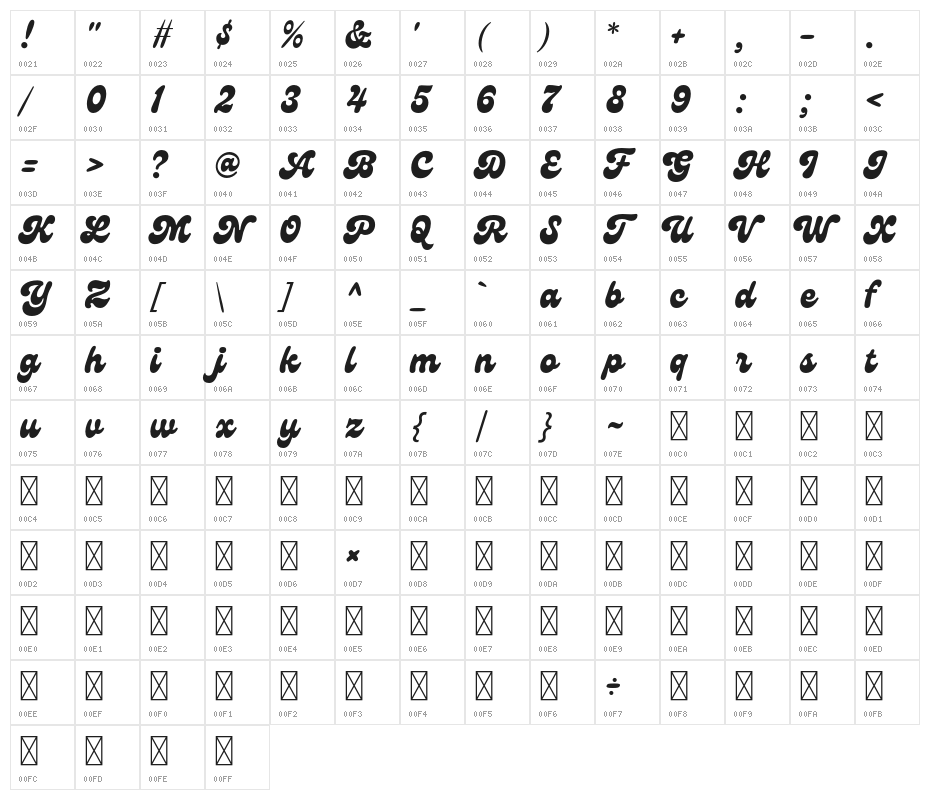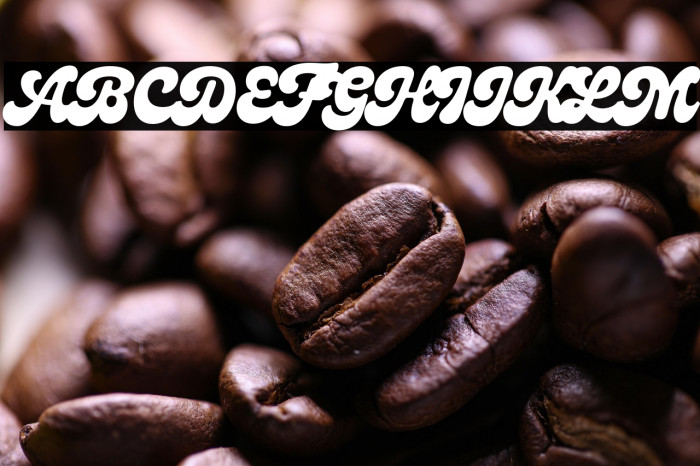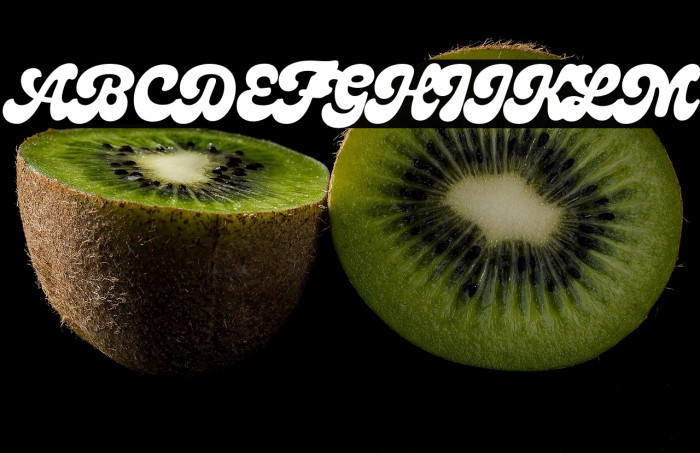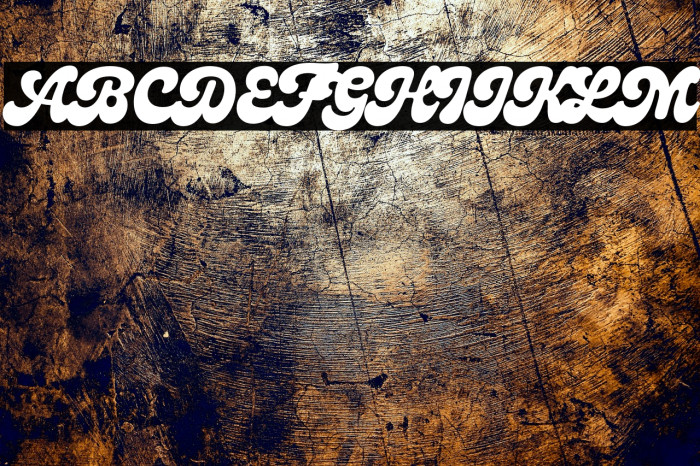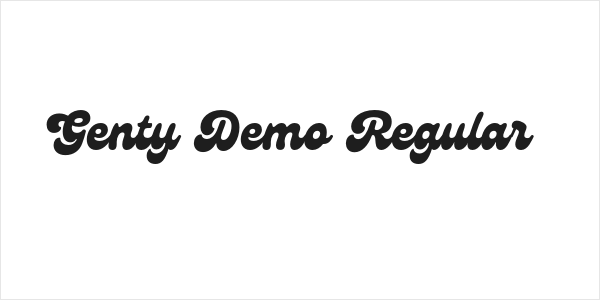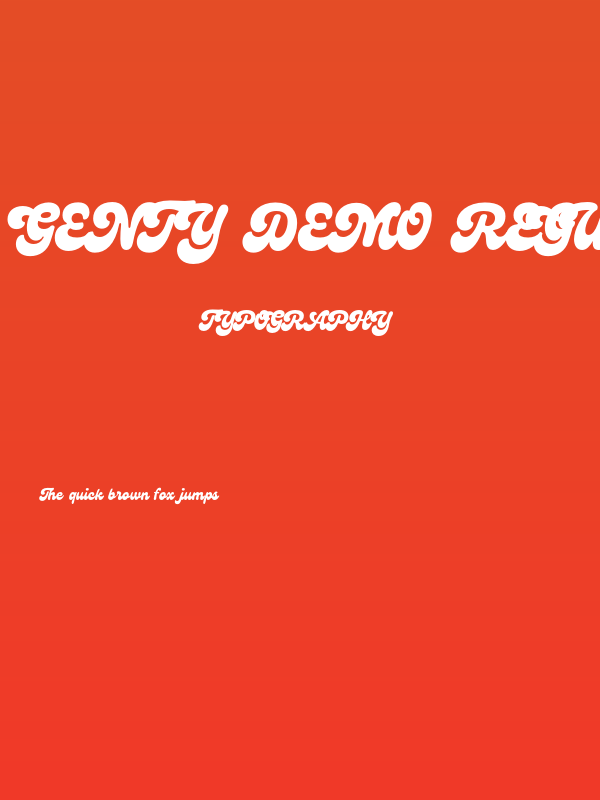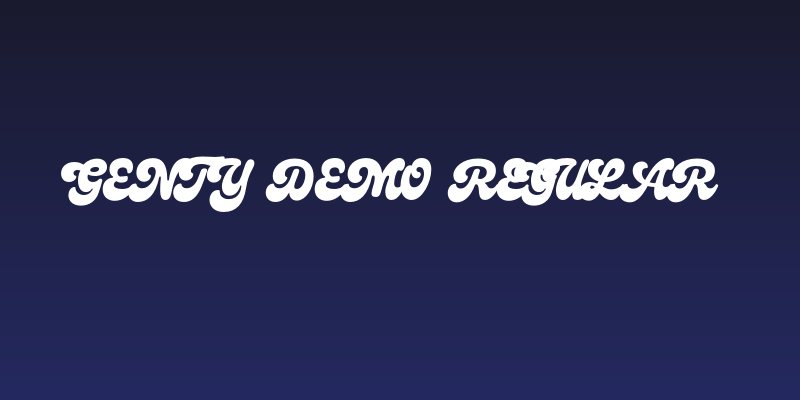
Genty Demo Regular Font
Genty Demo Regular Description
This font features a bold, flowing script style with a playful and energetic character. The letters are interconnected, creating a sense of movement and continuity. The strokes are thick and rounded, giving it a friendly and approachable appearance. The uppercase and lowercase letters maintain a consistent style, with the lowercase letters exhibiting a slight slant that enhances the dynamic feel. The numerals and special characters are equally bold and maintain the cohesive design. This font is ideal for projects that require a lively and informal touch.
| Proposed Projects | Ideal for branding, invitations, greeting cards, and playful advertising. |